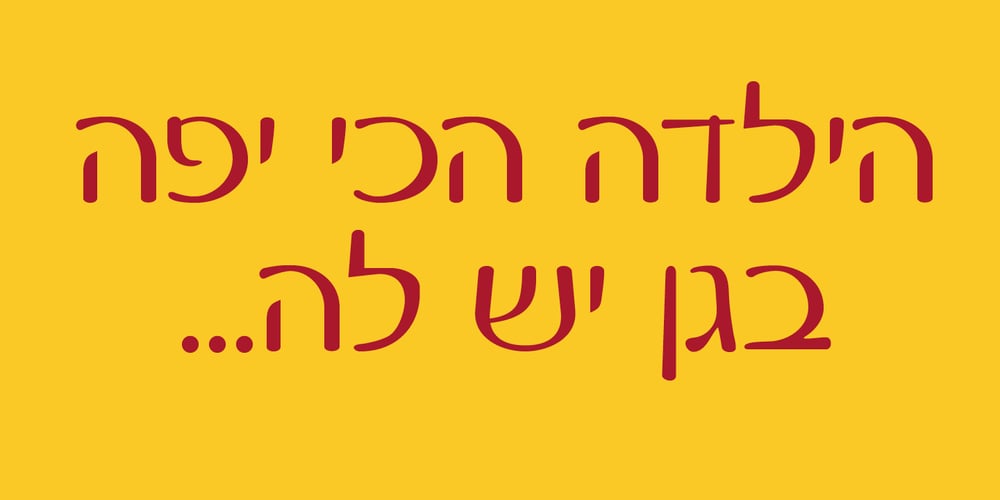
Balora MF
Balora MF font
Balora MF Font Family was designed by Zvika Rosenberg and published by Masterfont. Balora MF contains 2 styles and family package options. Nostalgic and elegant solution for any outstanding poster or banner. You choose..